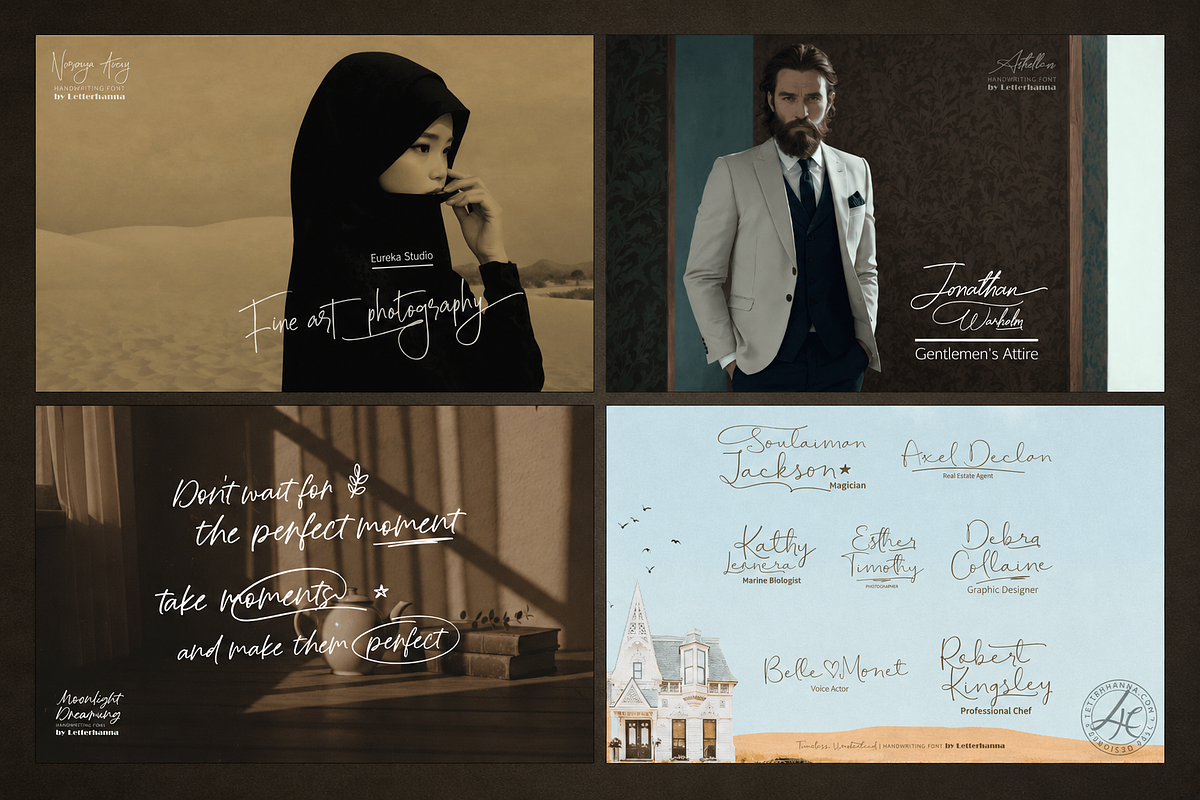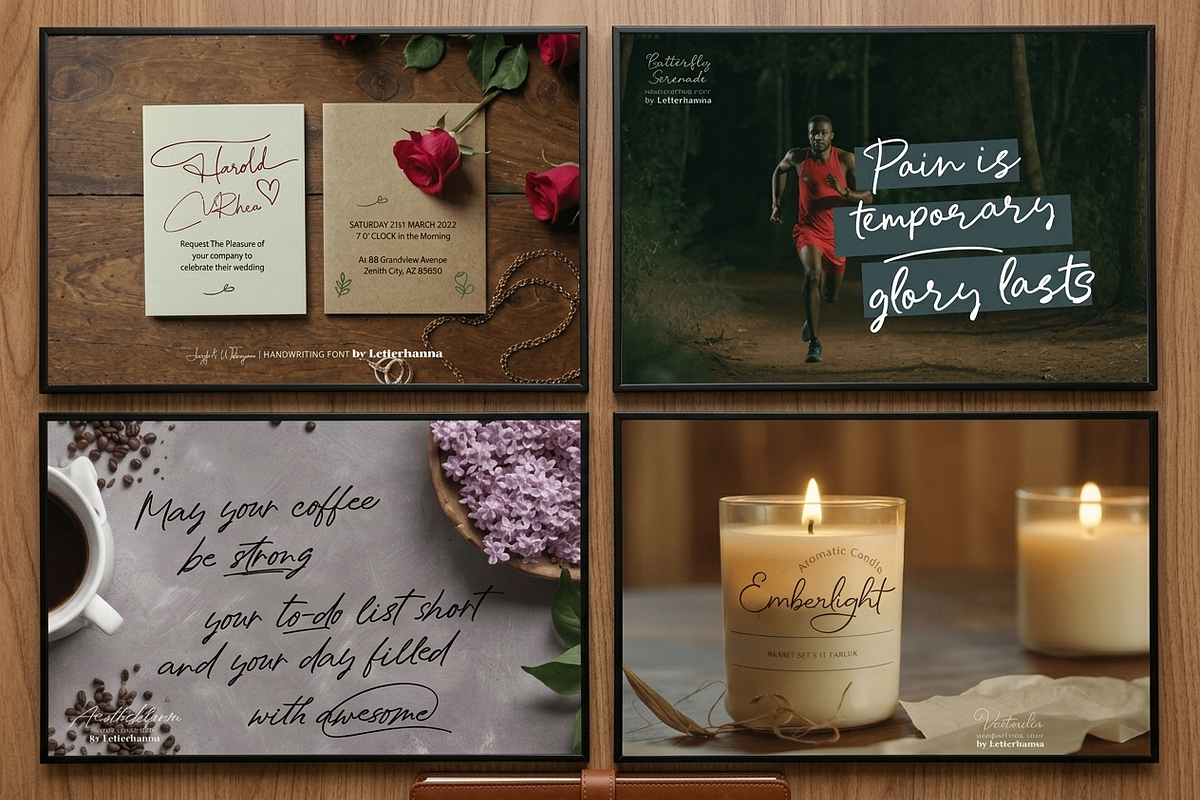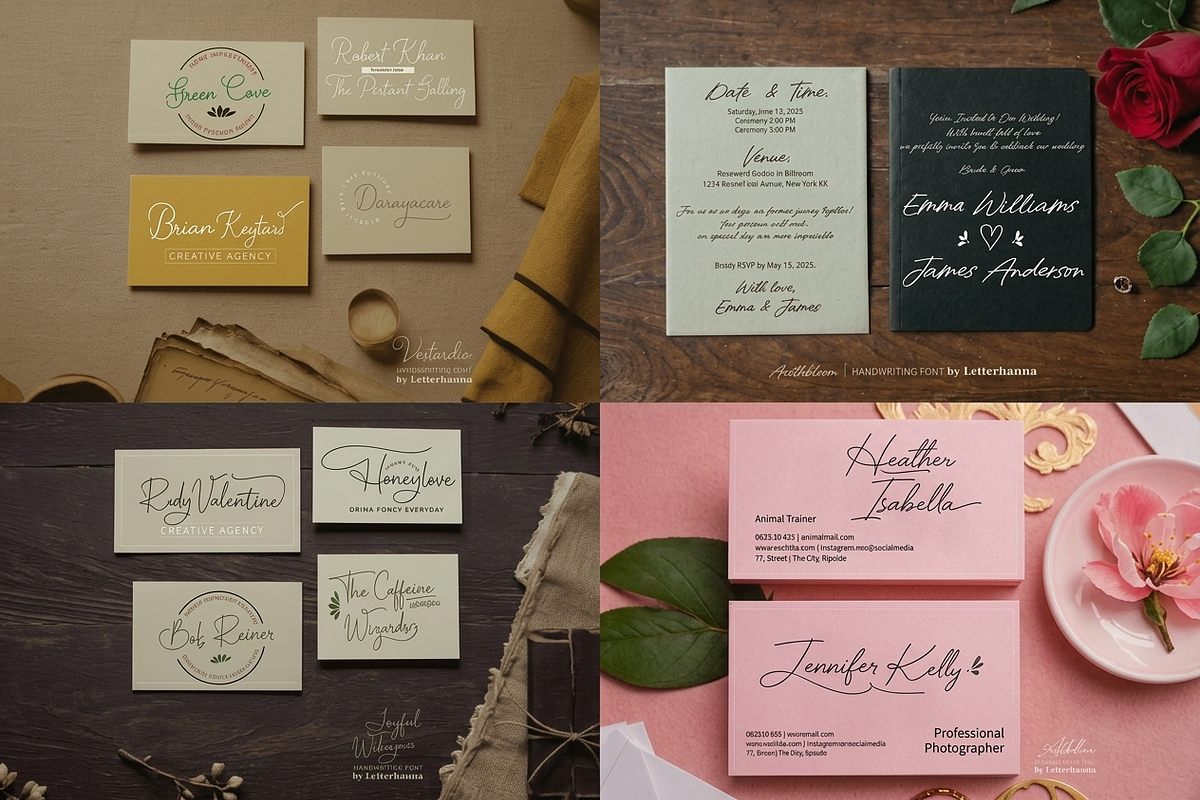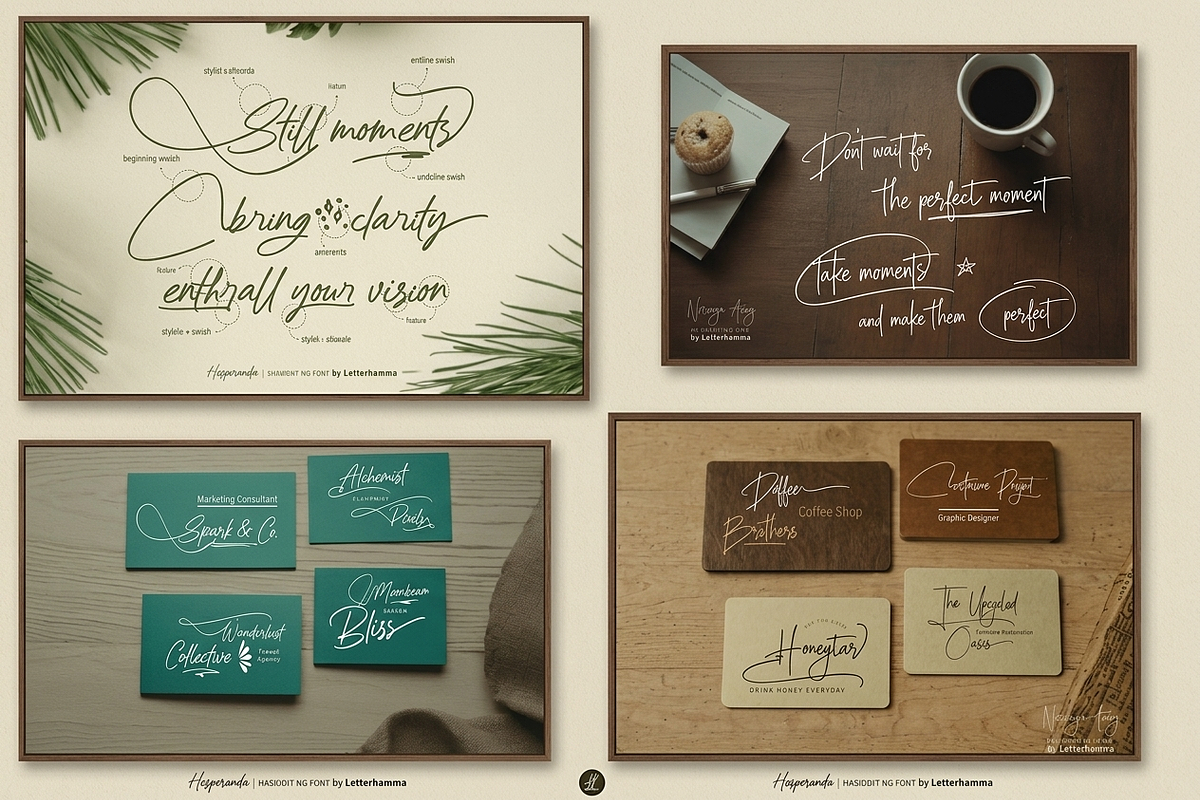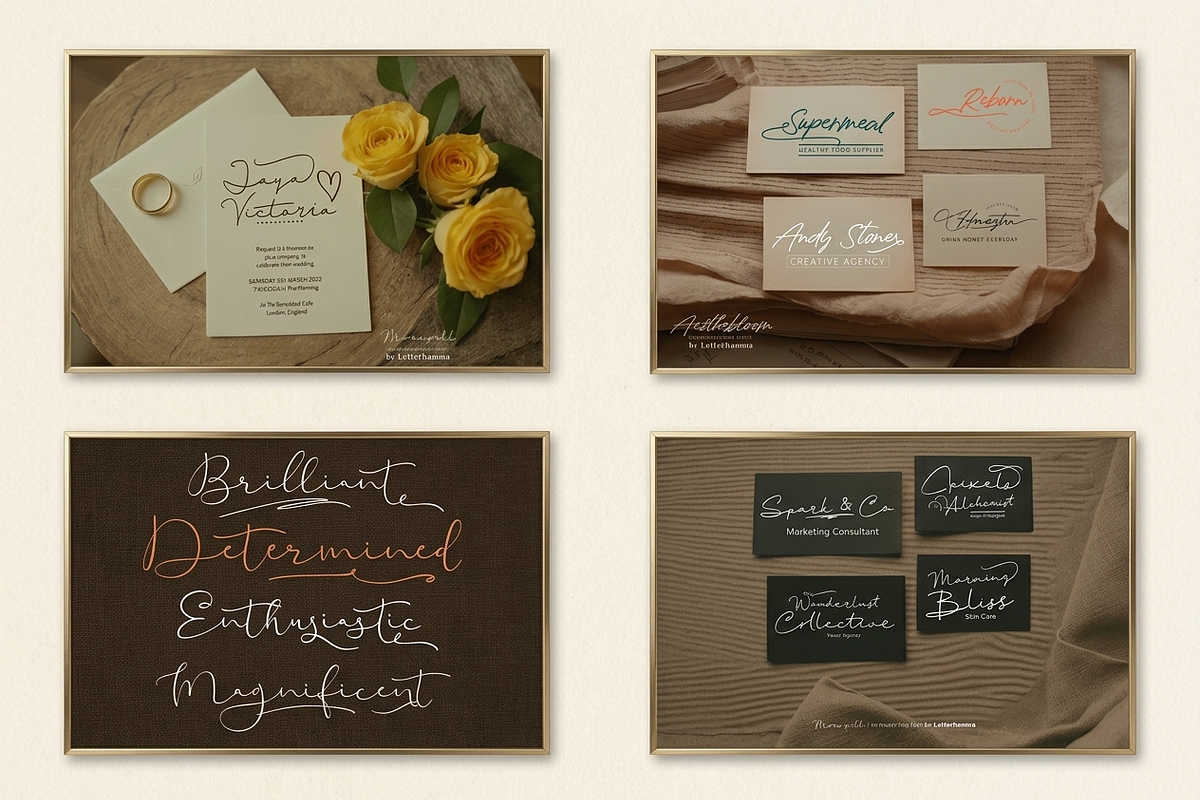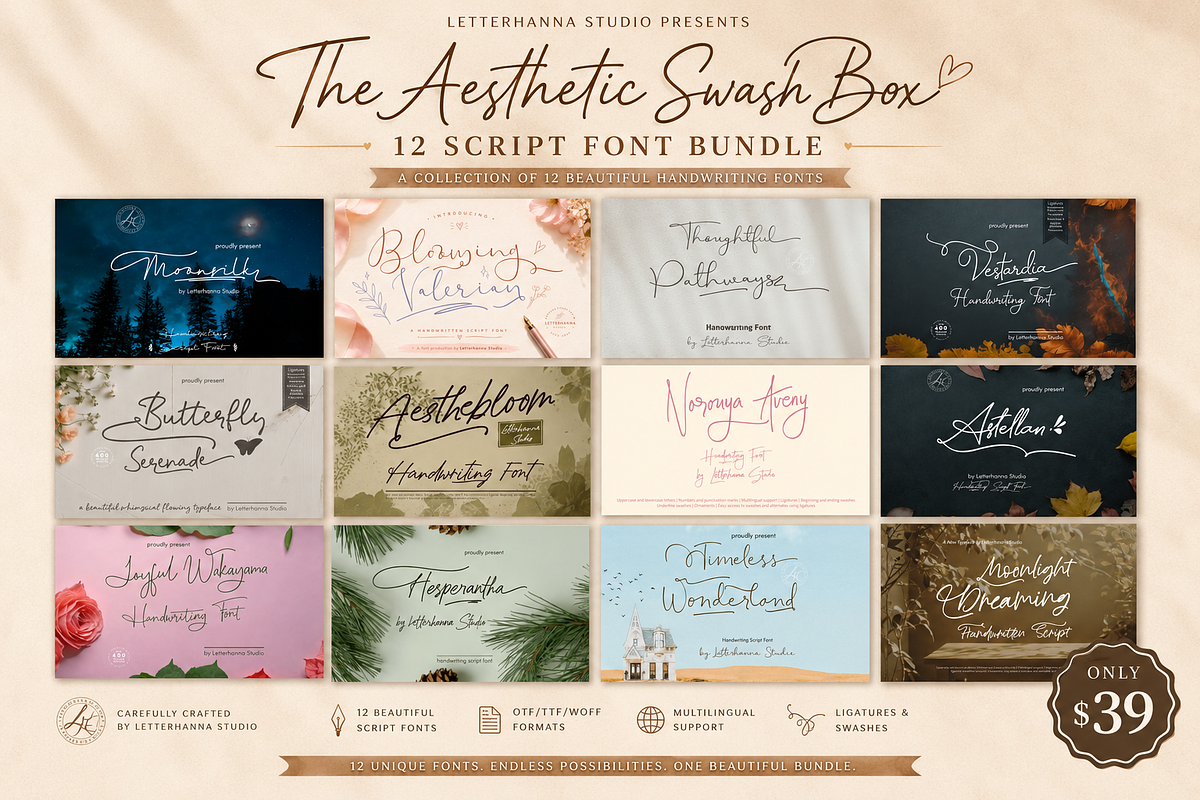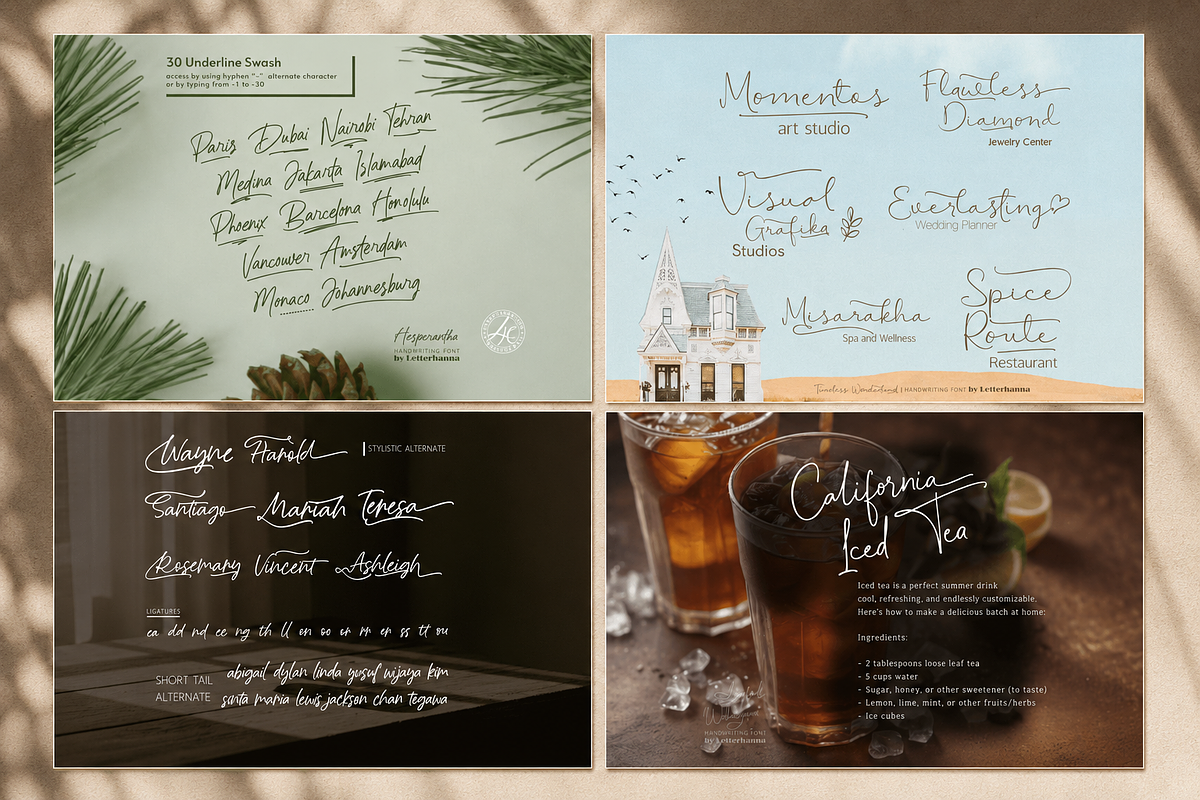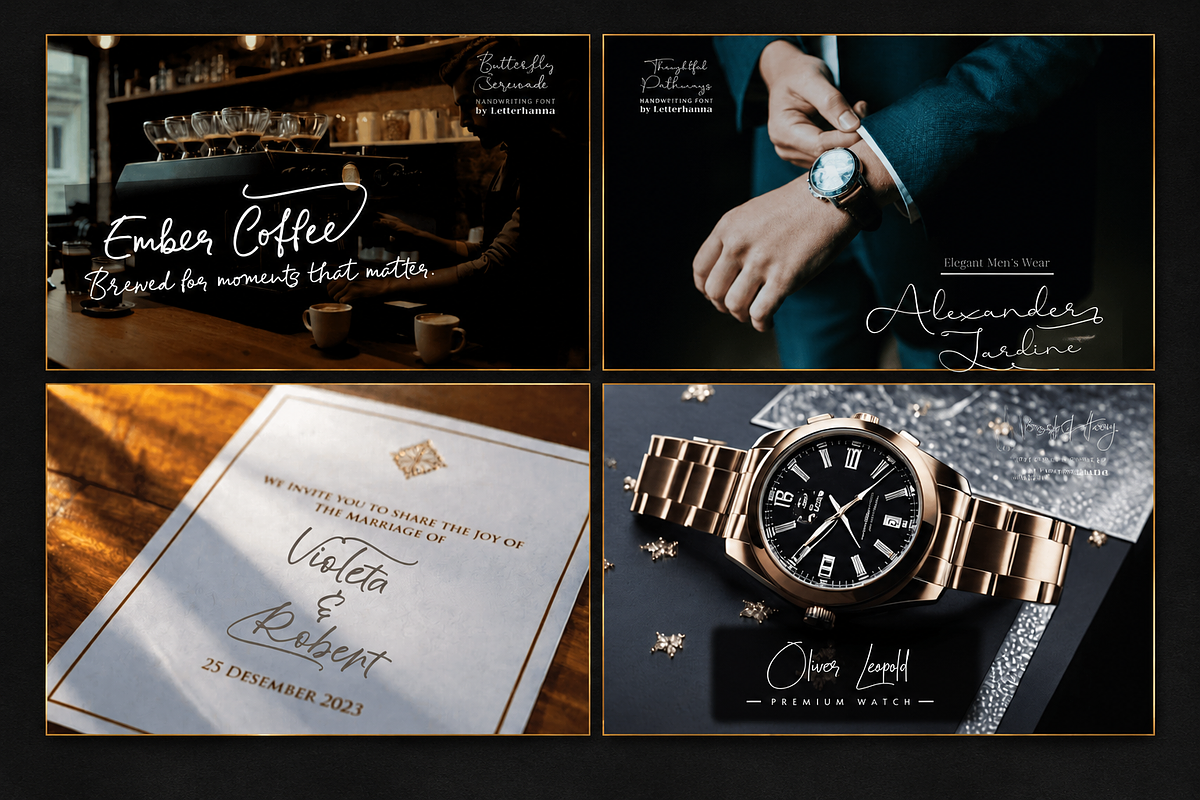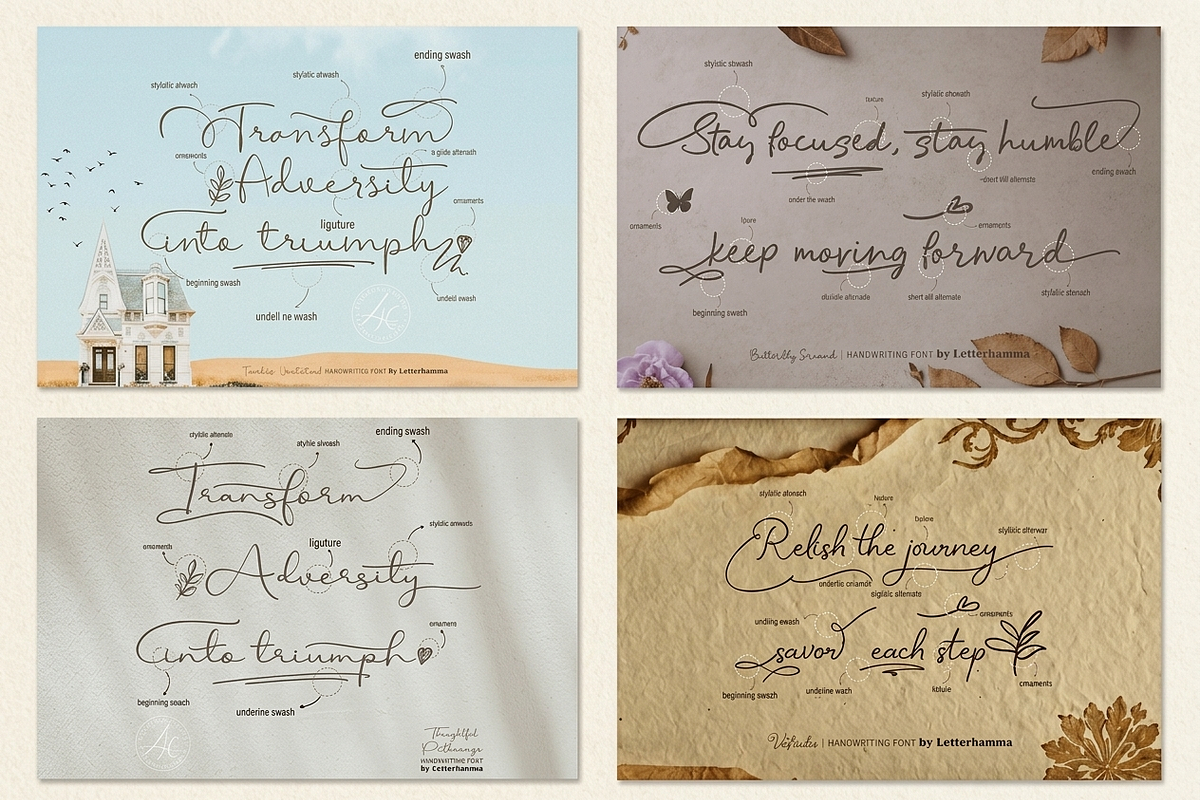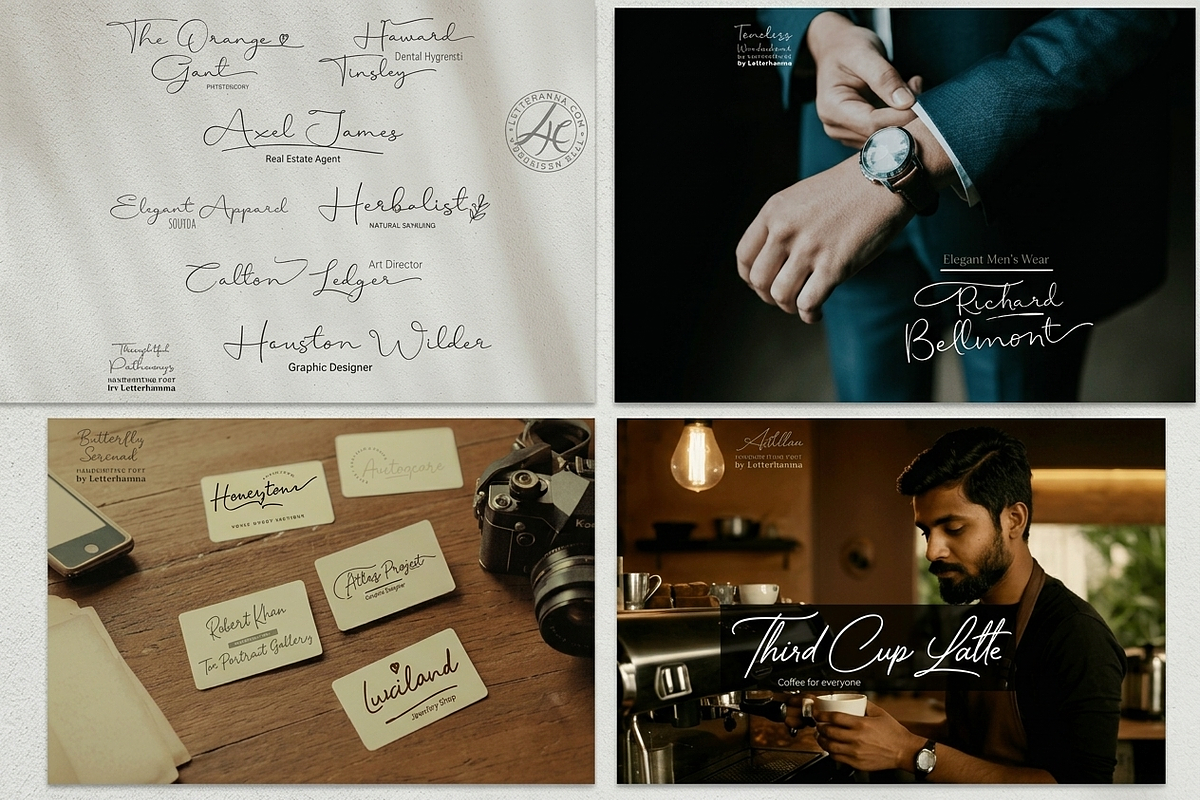
The Aesthetic Swash 12 Font Bundle
Introducing The Aesthetic Swash Box — a handpicked collection of 12 premium script fonts from Letterhanna Studio, crafted for designers, makers, and creative entrepreneurs who refuse to settle for ordinary.
Each font in this bundle was designed with intention — flowing curves, elegant swashes, and that unmistakable handcrafted warmth that makes every project feel personal. Whether you're designing wedding stationery, branding materials, product packaging, social media content, or digital art, these fonts deliver the kind of beauty that clients notice and customers remember.
What's inside the box:
— Aesthebloom — graceful, soft, and full of artistic charm
— Astellan — signature style with heartfelt expression
— Blooming Valerian — romantic and garden-inspired
— Butterfly Serenade — delicate and dreamy
— Hesperantha — refined with an evening elegance
— Joyful Wakayama — warm, expressive, and full of life
— Moonlight Dreaming — flowing strokes for romantic designs
— Moonsilk — smooth, luminous, and sophisticated
— Norouya Aveny — modern handwriting with personality
— Thoughtful Pathways — gentle and narrative in tone
— Timeless Wonderland — whimsical yet classic
— Vestardia — bold swashes for a dramatic finish